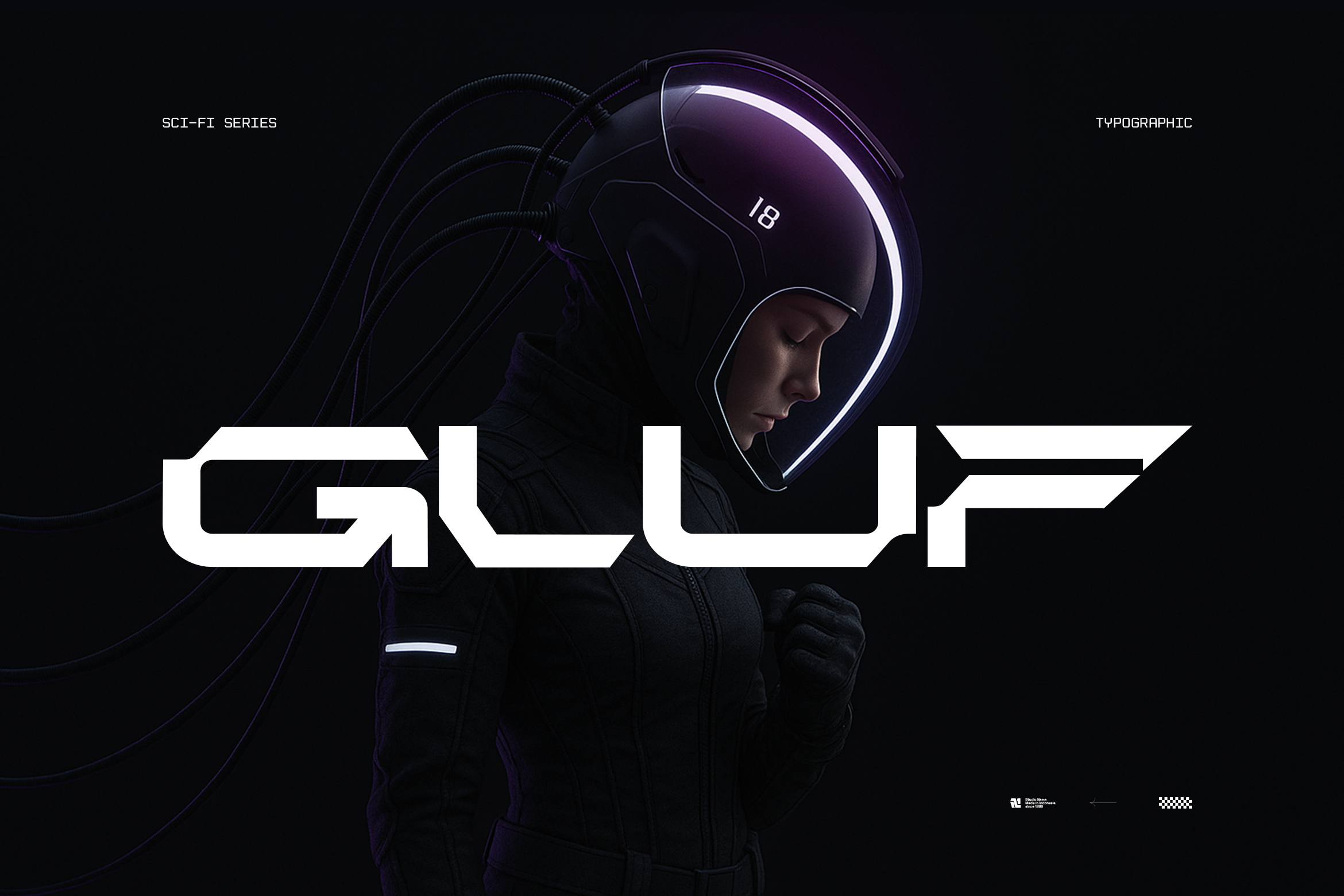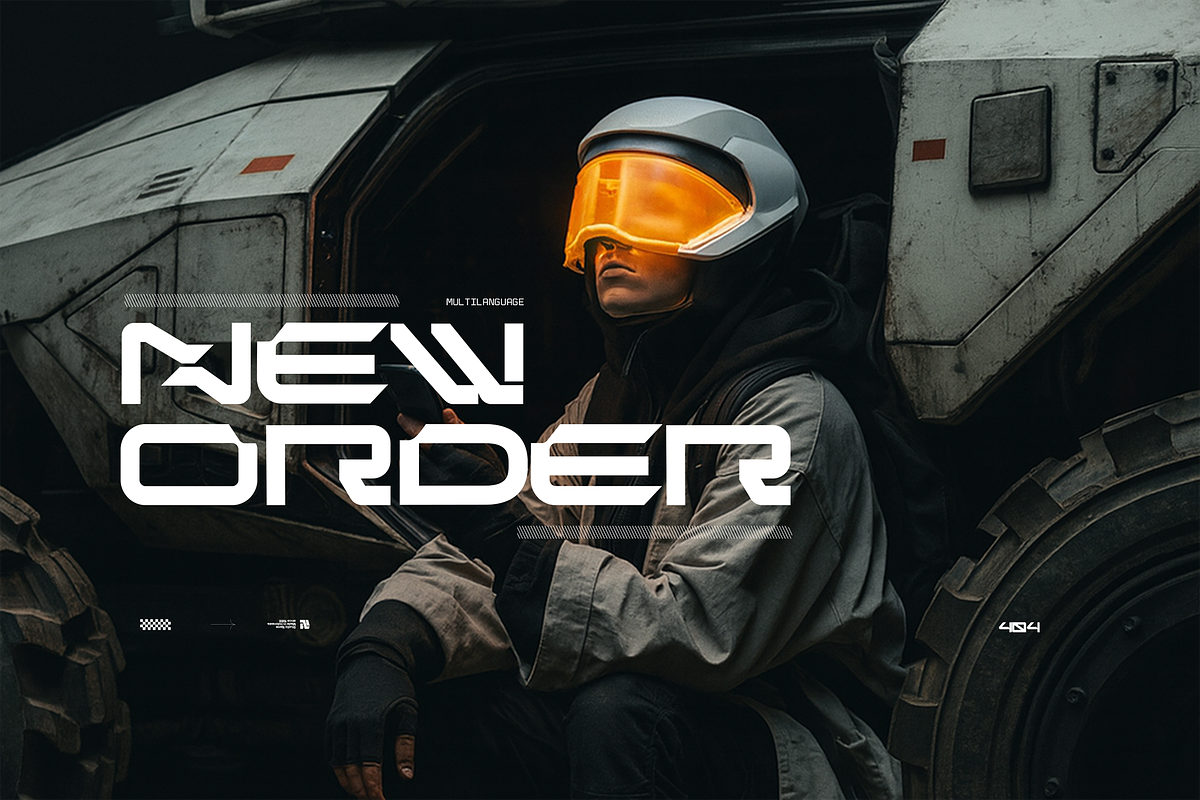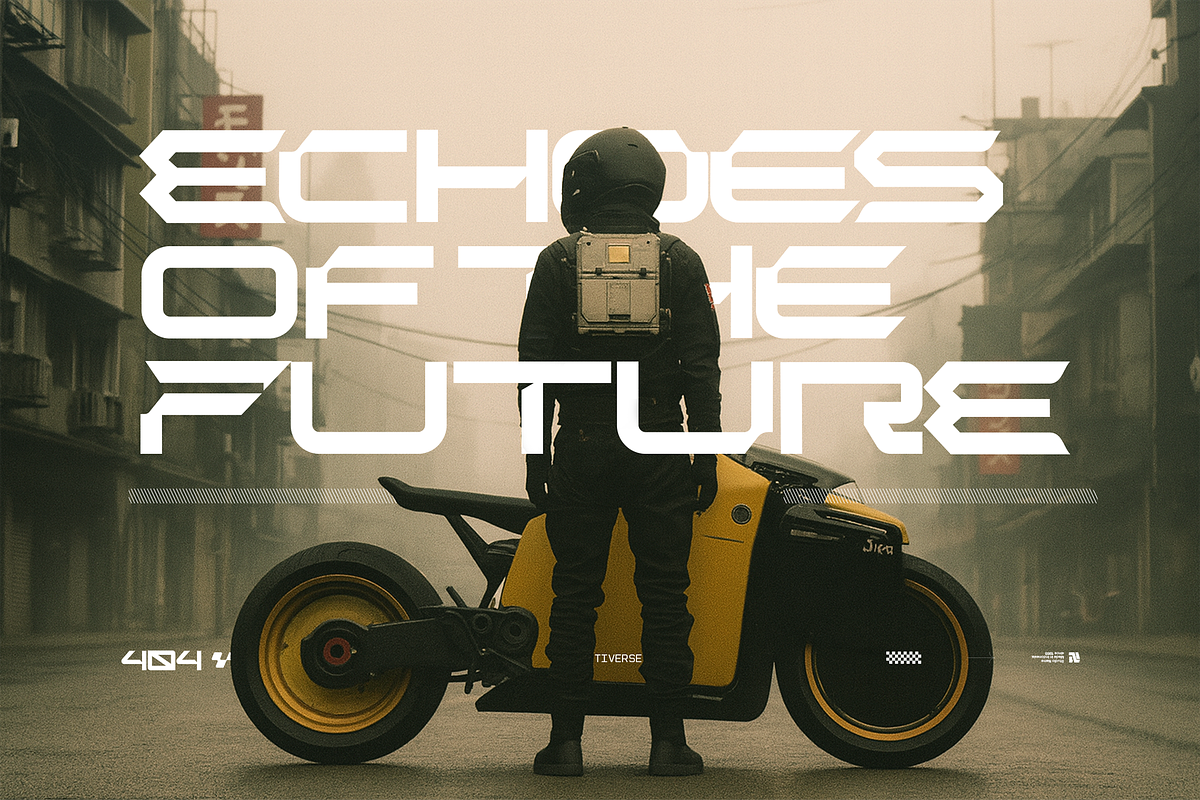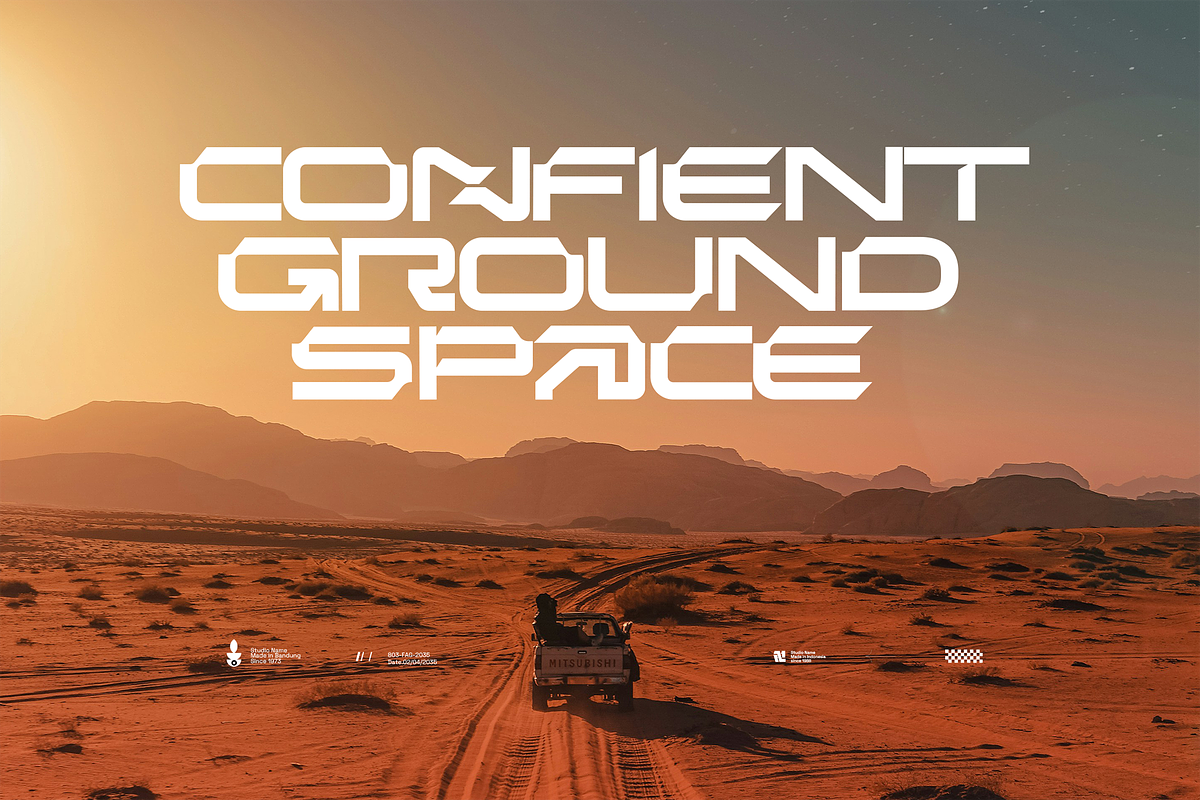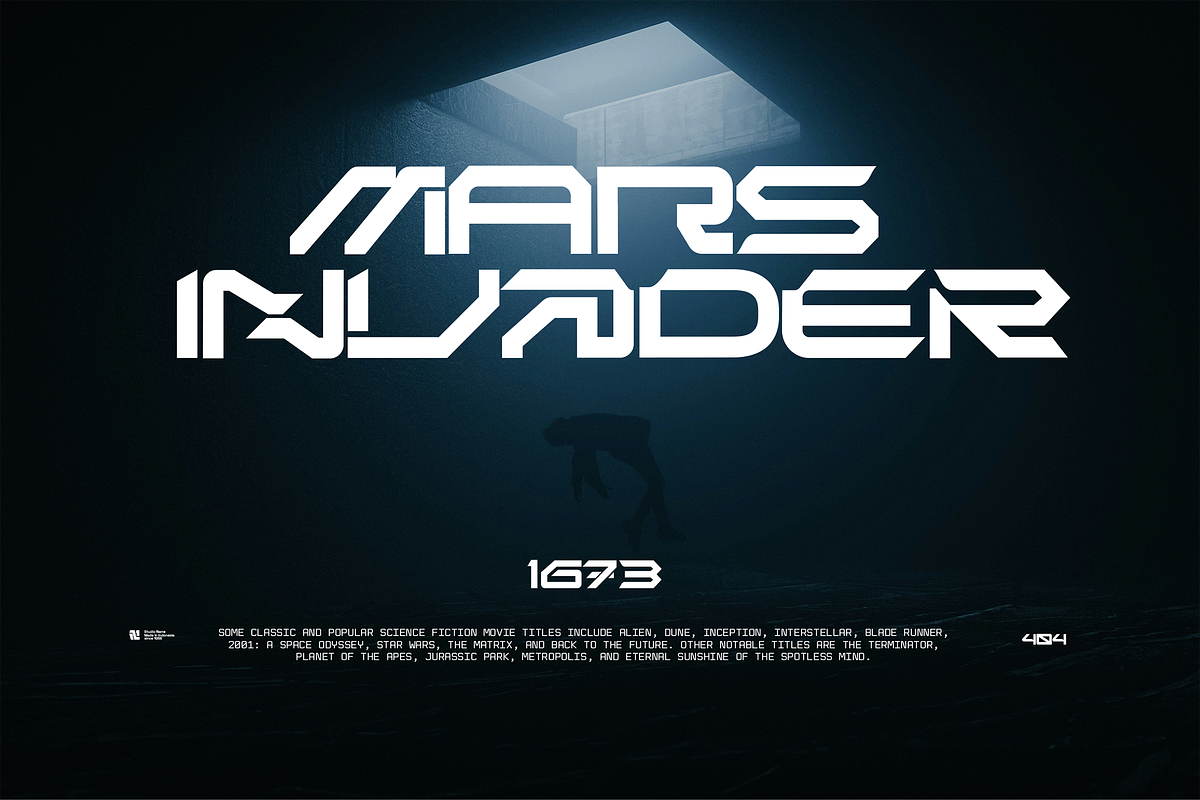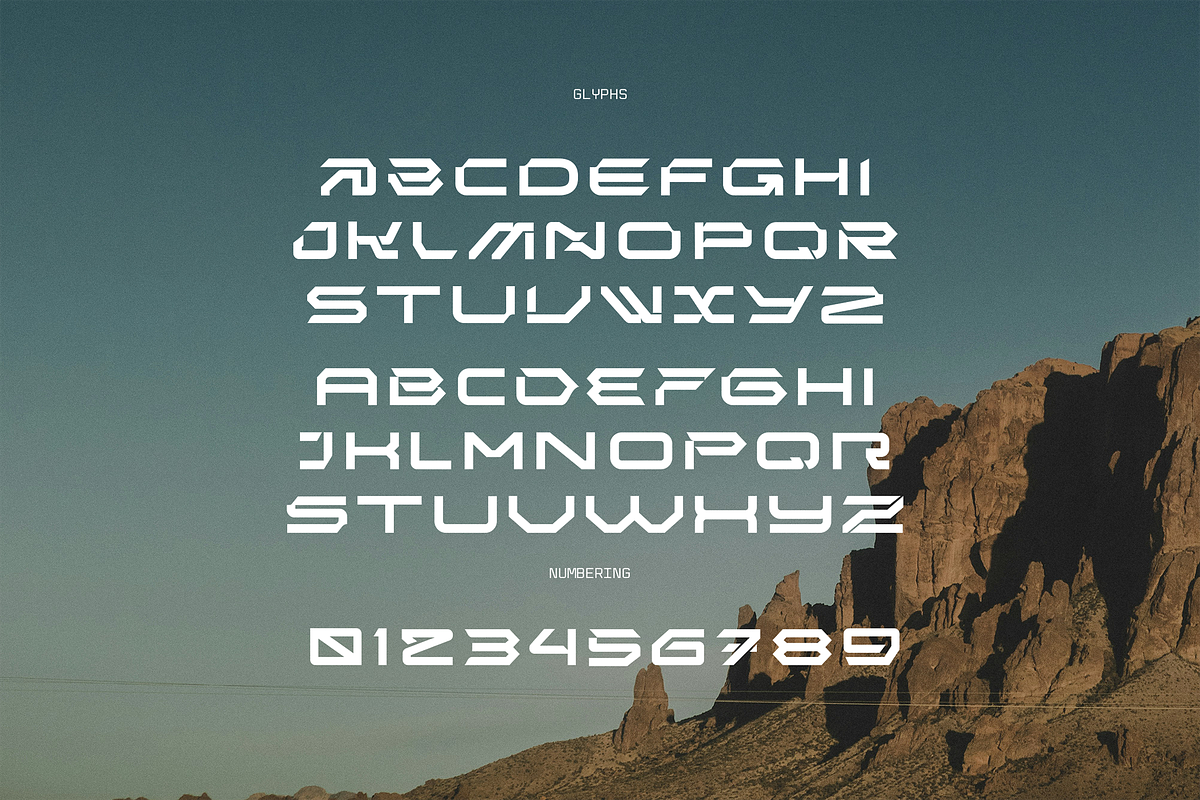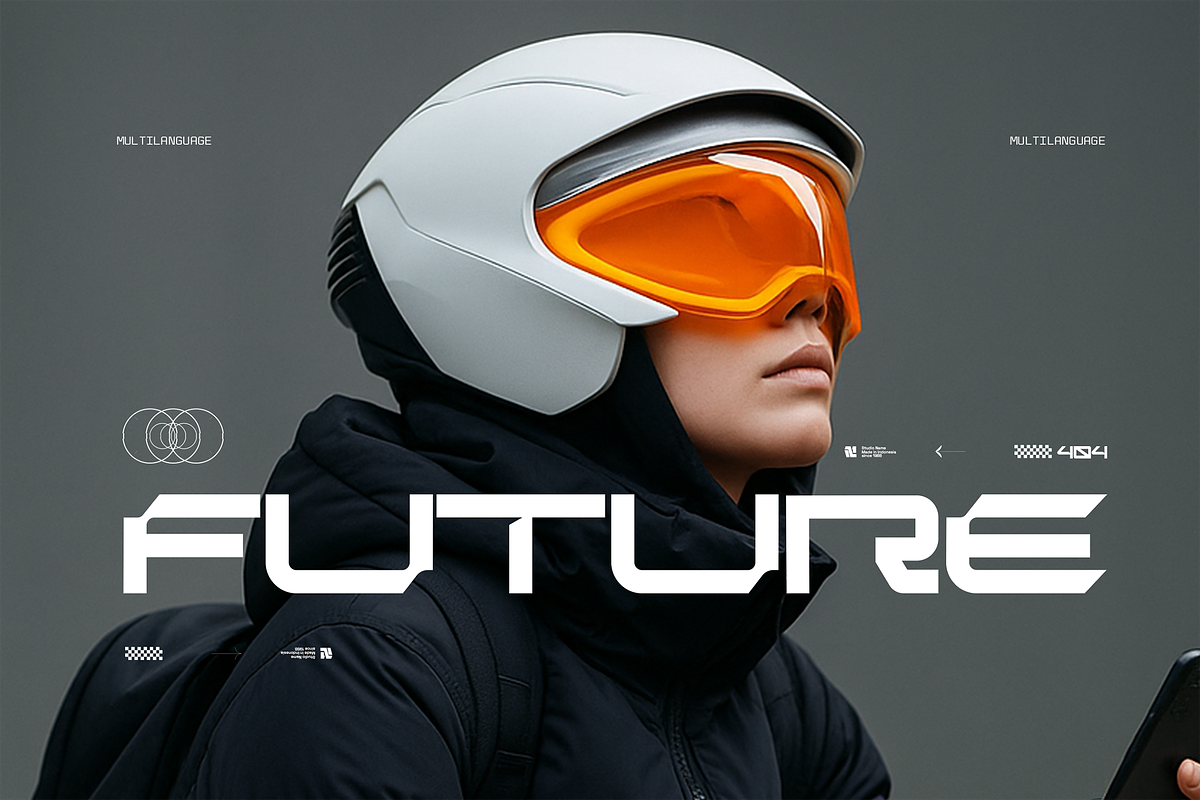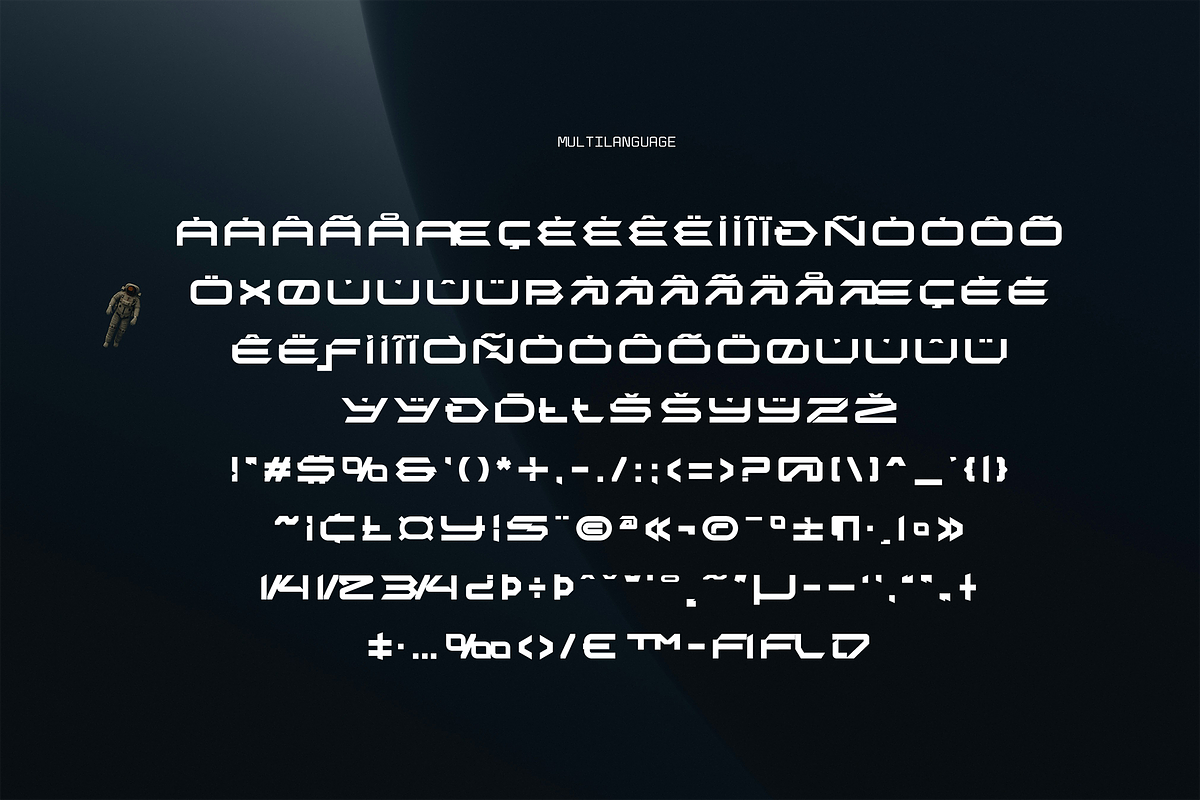
Gluf-Futuristic Font
Gluf is a futuristic display font crafted with bold precision and minimalist aesthetics. The name itself, short and memorable, reflects the essence of the font: clean, sharp, and forward-looking. Every curve and line in Gluf is designed to strike a balance between industrial strength and modern elegance, making it a versatile choice for a wide range of creative projects.
Whether you’re designing logos, posters, album covers, apparel, gaming titles, or tech-inspired branding, Gluf delivers a strong visual identity that instantly captures attention. Its bold all-caps style ensures readability even in large-scale designs, while its sleek geometry gives your work a contemporary and professional edge.
Perfect for branding, editorial layouts, motion graphics, UI design, and digital art, Gluf is more than just a font – it’s a creative tool that embodies futuristic vision and minimal sophistication. Add Gluf to your design toolkit and let your projects stand out with a modern, powerful personality.
- Latin Simple Multilanguage
- Numbering & Punctual